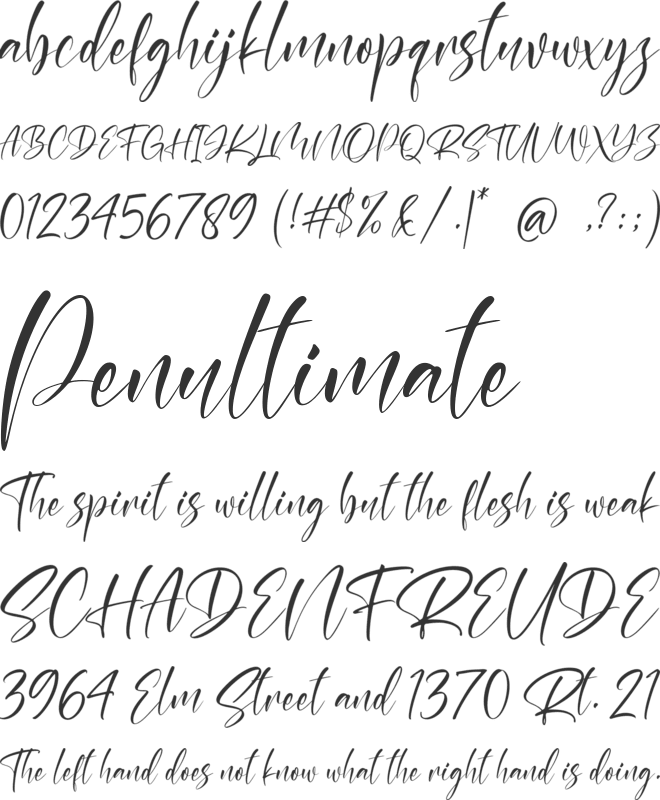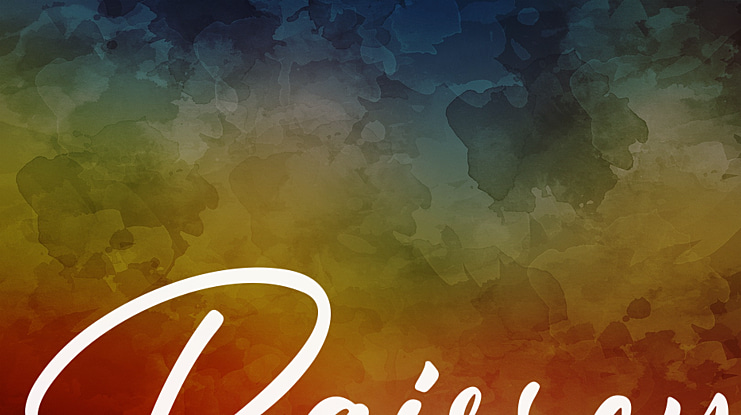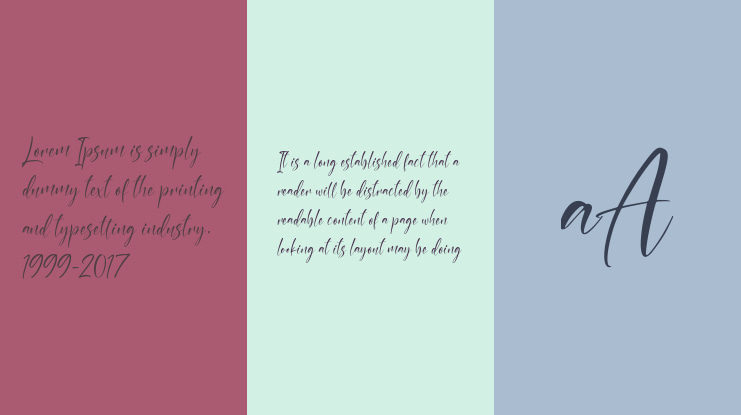
Raissey Font
Muhammad Farhan Sholeh Ramadhika
Raissey is a beautiful and refined script font. It has a classy, elegant and modern look that can be used for logos, branding, invitations, stationery, wedding designs, social media posts, and much more!